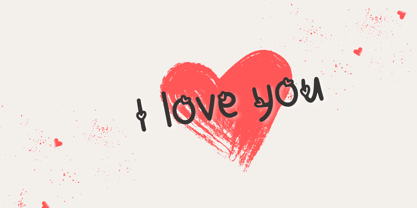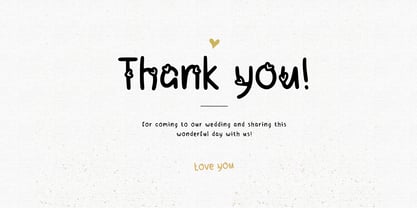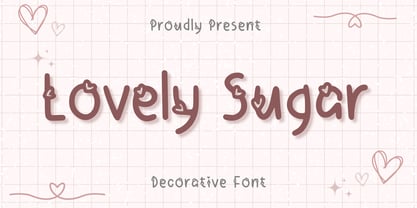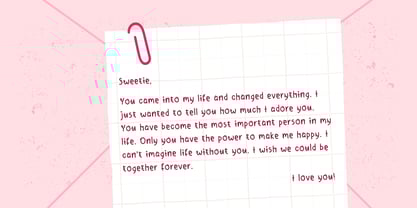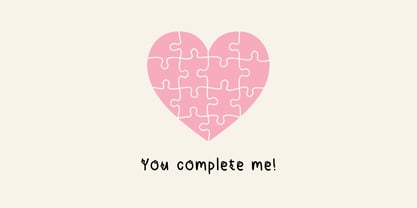
Lovely Sugar
by Aisyah
The Lovely Sugar Font Family was designed by Nur Aiysah Amalia and published by Aisyah. Lovely Sugar contains 1 styles. More about this family
Immerse yourself in the charming allure of "Lovely Sugar", a uniquely decorative font boasting a heart-shaped design with each glyph. This enchanting typeface is the perfect tool to pour extra sweetness into your love letters or to sprinkle a dash of personality onto your business projects. Versatile and delightful, "Lovely Sugar" is equally at home accentuating your craft endeavors, or making a bold statement in titles and headlines. Illuminate your creative horizon with the undeniably attractive whimsy of Lovely Sugar.